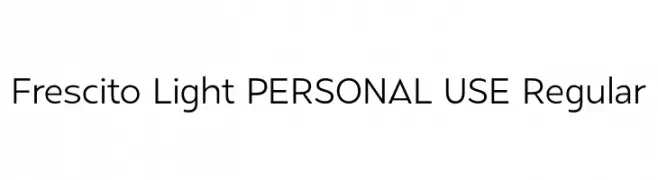
A modern, thin, and wide font with elegant, elongated letterforms.
A bold, wide, backslanted font with a modern and dynamic style.
A bold, wide, and italicized font with a modern and dynamic style.
A wide, medium-weight font with a distinctive backslant, perfect for modern designs.
A modern, wide, and geometric font with clean lines and minimal contrast.
An elegant italic font with smooth curves and a dynamic slant.
A thin, elegant italic font with a modern and sophisticated style.
A sleek, modern font with thin, clean lines and a minimalist design.
A modern, elegant font with clean lines and balanced proportions.
A bold, italic font with a dynamic and modern style.
A bold, modern serif font with a classic touch, ideal for impactful designs.
A refined, elegant font with thin strokes and a minimalist aesthetic.
A bold and robust font with strong, thick strokes and a confident presence.
A sleek, extra-light italic font with a modern and elegant style.
A modern, italic font with clean lines and smooth curves.
A bold, italic font with smooth strokes and moderate contrast, offering a dynamic and elegant appearance.
A modern serif font with elegant curves and balanced proportions.
A bold, high-contrast font with rounded edges and a strong presence.
A clean, modern font with a subtle elegance and light weight.
A sleek, light, and italicized font with a modern and elegant style.
A bold, dynamic script font with high contrast and a sense of motion.
A modern, rounded font with clean lines and high legibility.
A bold, rounded font with a playful and approachable style.
A modern, light sans-serif font with a clean and minimalist style.
Bold, geometric pictograms with rounded corners and high legibility.
A bold, rounded sans-serif font with smooth curves and uniform strokes.
A bold, modern sans-serif font with strong, clean lines and excellent readability.
A modern, light, and slightly italicized font with rounded edges and consistent thin strokes.
A bold, italicized font with a modern and dynamic style.
A bold, geometric font with rounded edges and a modern style.